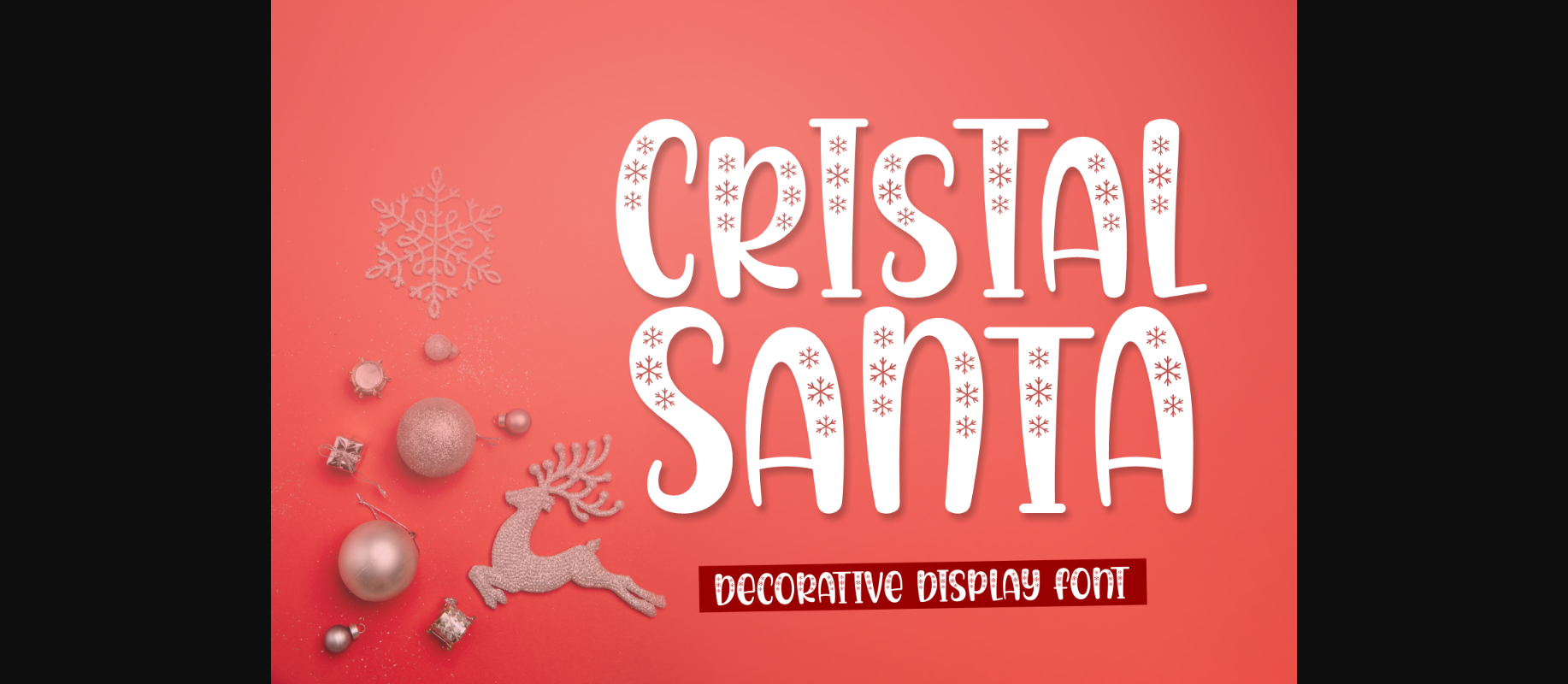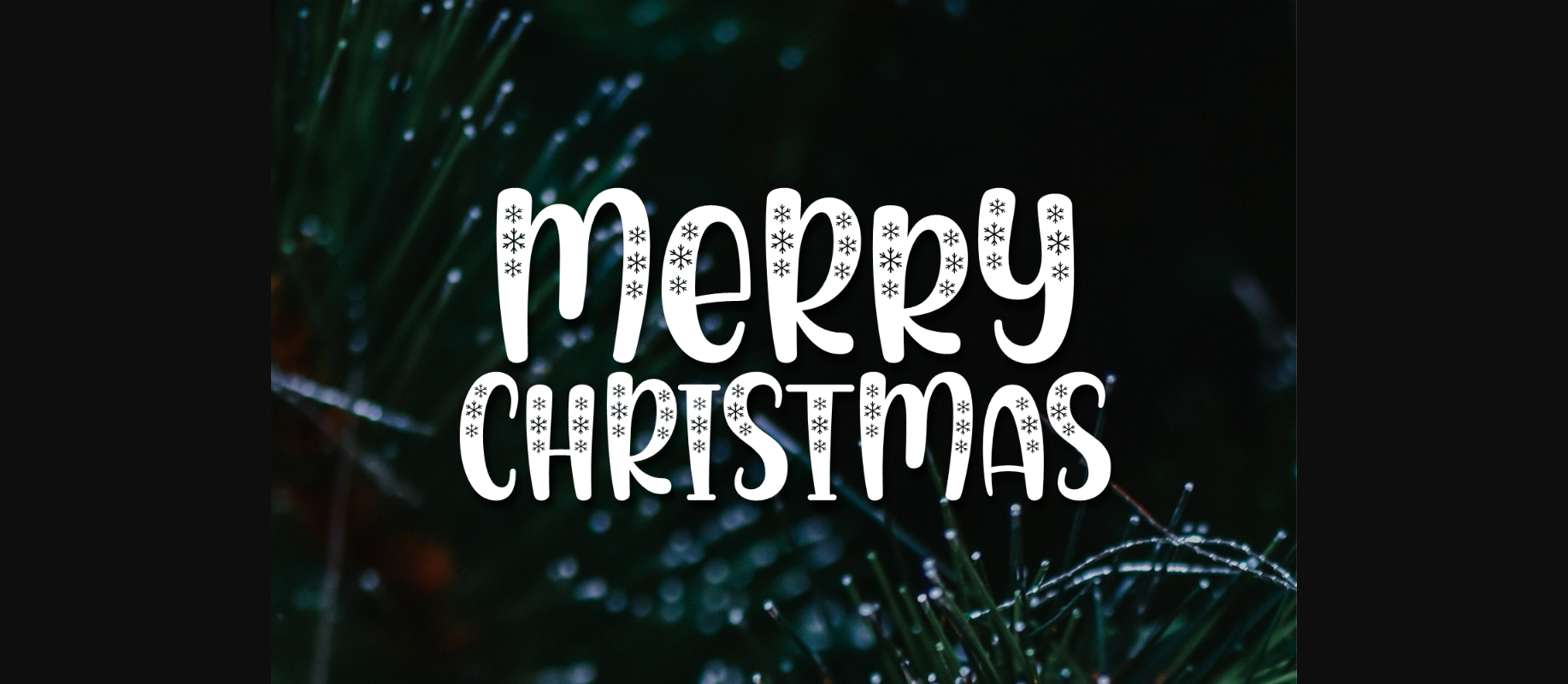
About Cristal Santa Font
Cristal Santa is a playful and charming decorative font that will impress you with its elegance and authenticity! Use it for Christmas cards, gifts, apparel designs, stationery, or other projects that need a frosty look!